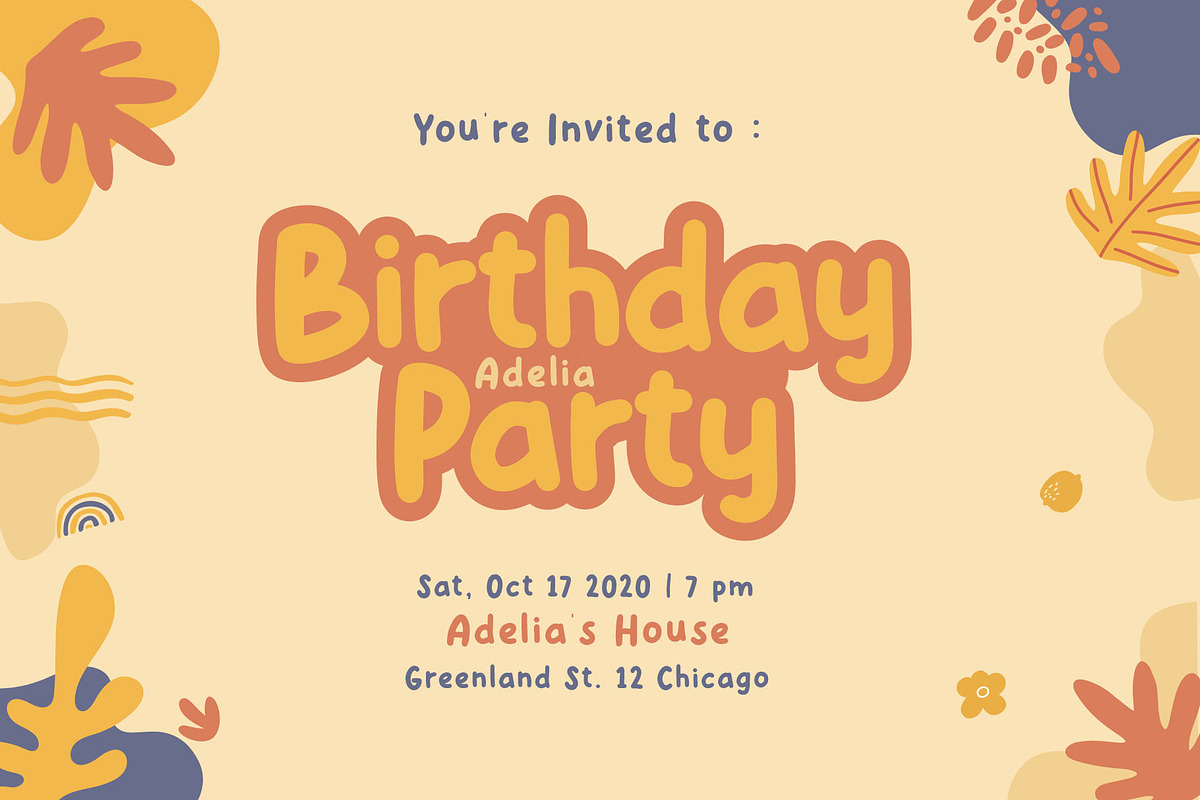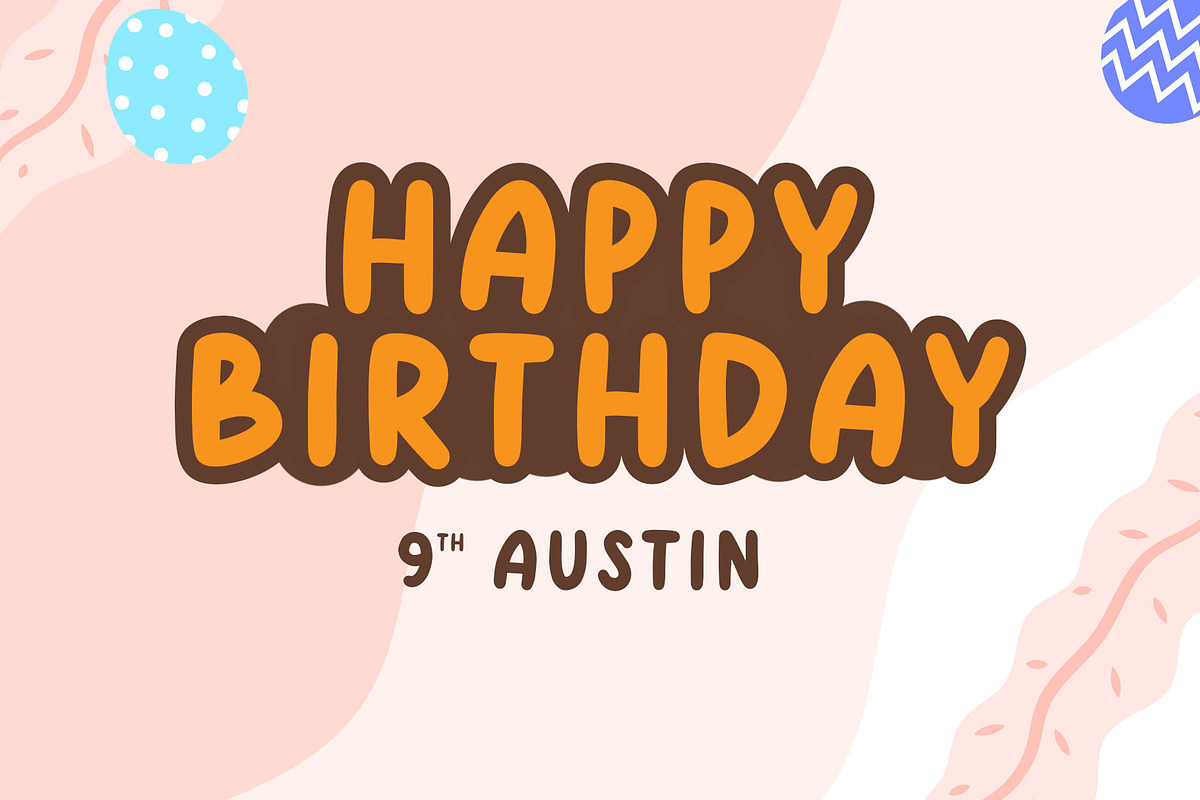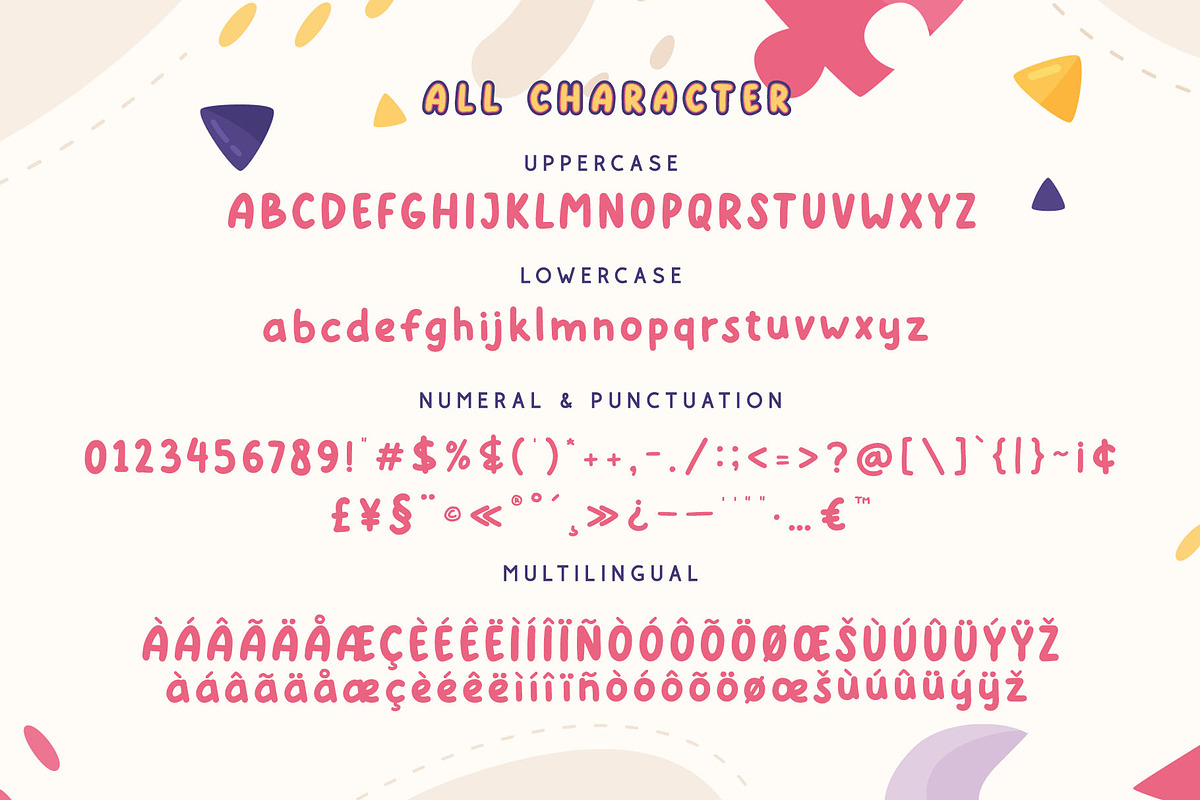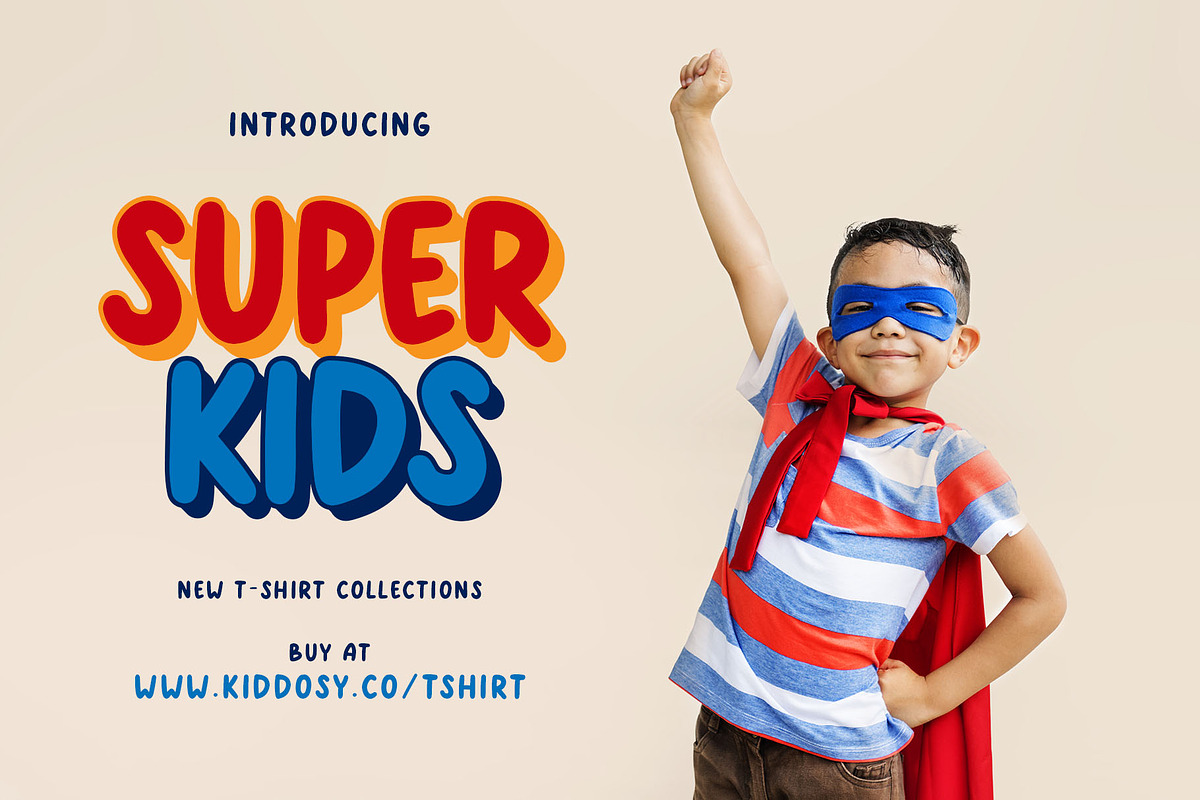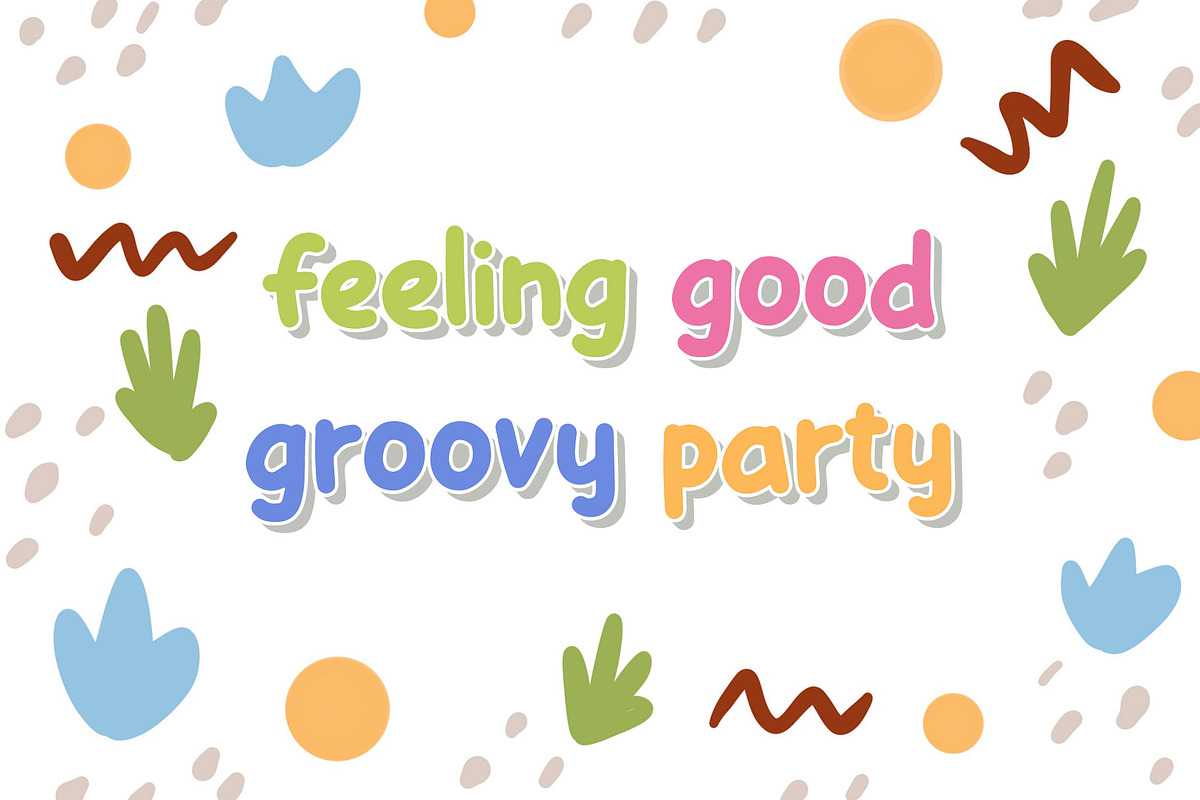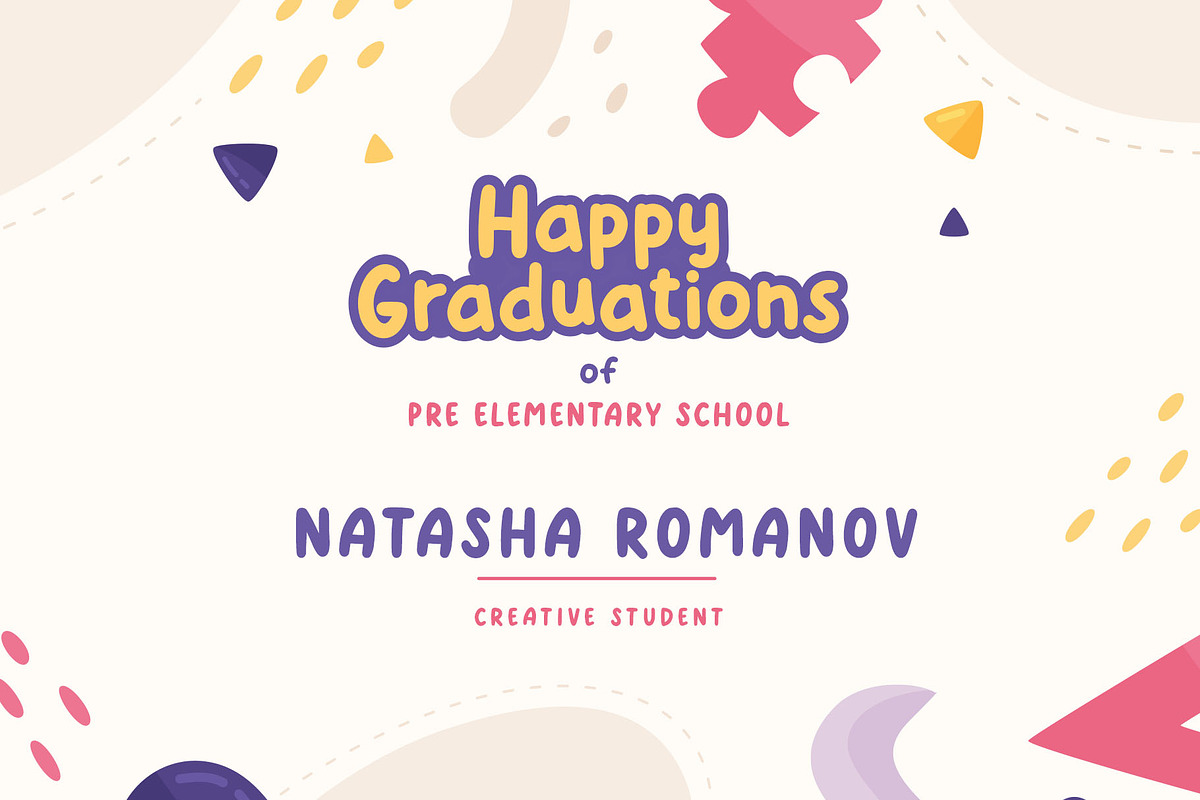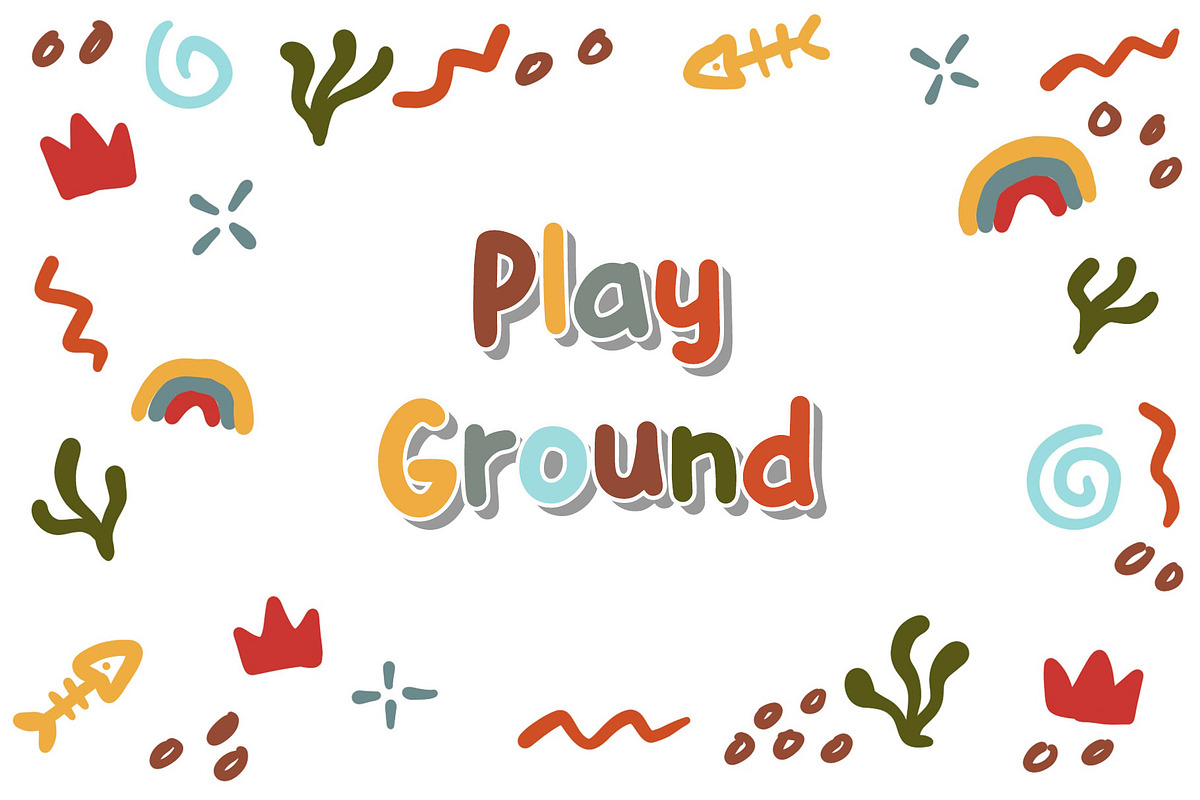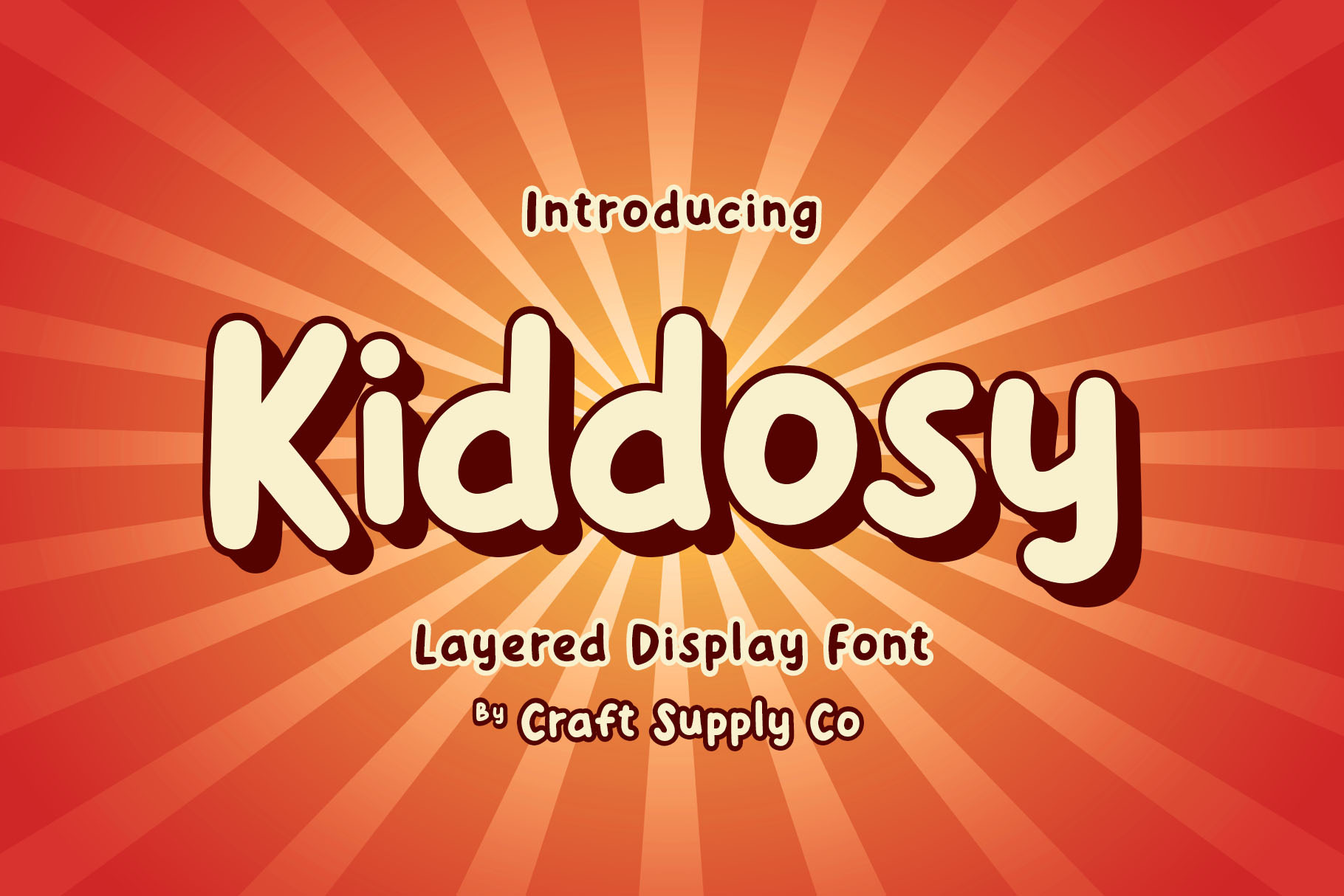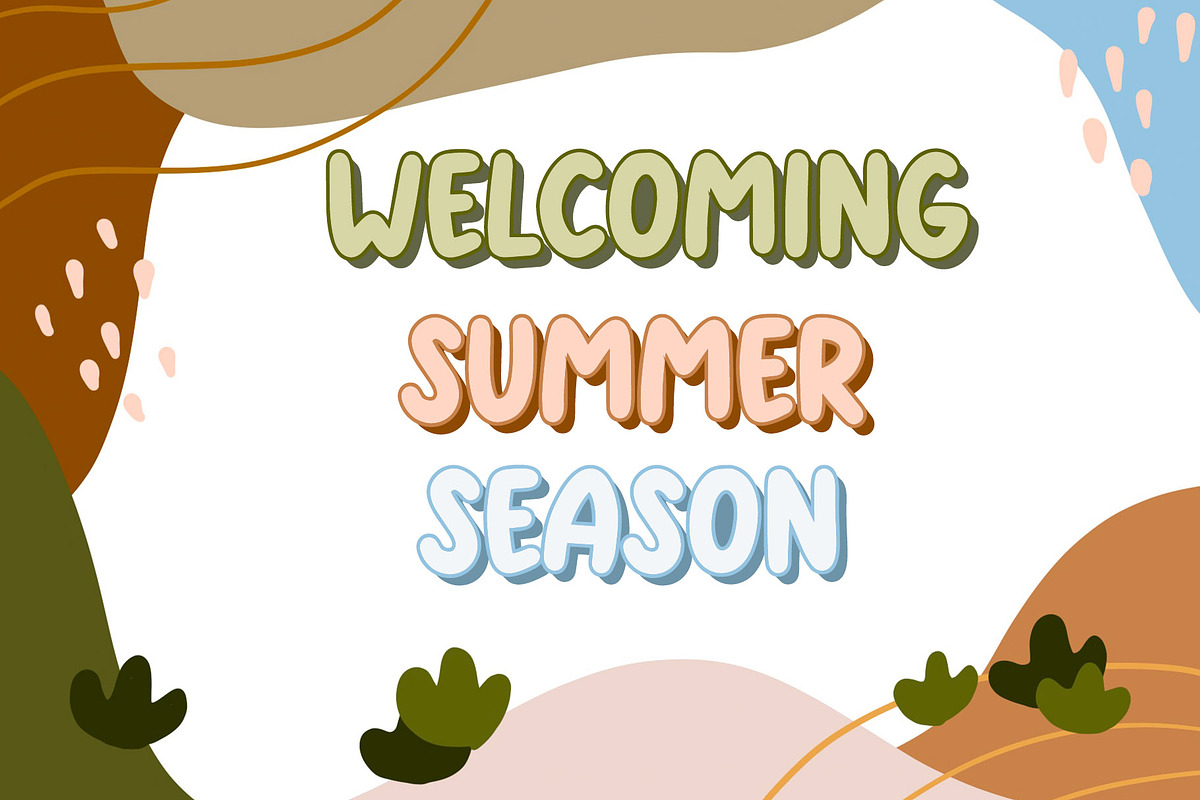
Kiddosy - Layered Display Font
🌸 Introducing : Kiddosy - Layered Display Font 🌸
Kiddosy - Layered Display Font is a bold sans serif with bold solid and outlined font files. comes with 5 styles, is suitable for Logo, greeting cards, quotes, posters, branding, stationary, design title, blog header, art quote, typography art, modern envelope lettering or any purpose to make our art/design project look pretty and trendy.
Kiddosy - Layered Display Font also suitable for book design, happening style like handdrawn design or watercolor design theme, craft design, any DIY project, book title, wedding font, pop vintage design,